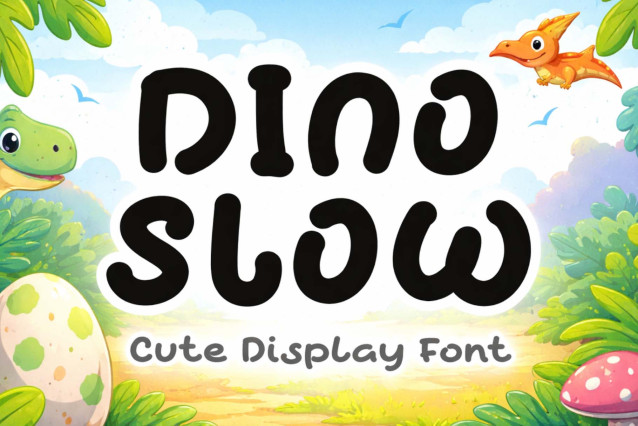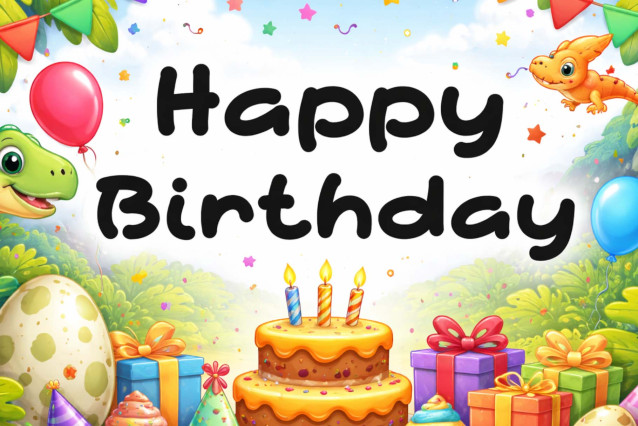
Dino Slow Font
“Dino Slow” is a unique and cute display font. It features uppercase and lowercase letters, numerals, punctuations, and multilingual support. It’s perfect for Easter, summer, holidays, Teacher’s Day, Mother’s Day, print, banners, branding, stickers, vacations, logos, Christmas, funny text, bunny, rabbit, cartoons, comics, and more.”Dino Slow” is a unique and cute display font. It features uppercase and lowercase letters, numerals, punctuations, and multilingual support. It’s perfect for Easter, summer, holidays, Teacher’s Day, Mother’s Day, print, banners, branding, stickers, vacations, logos, Christmas, funny text, bunny, rabbit, cartoons, comics, and more.